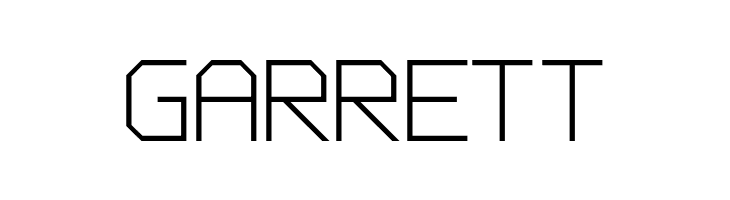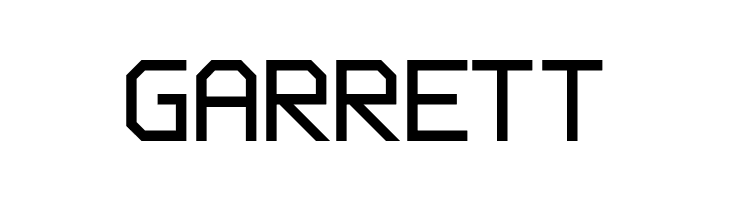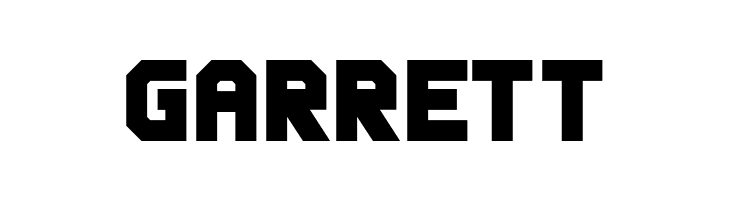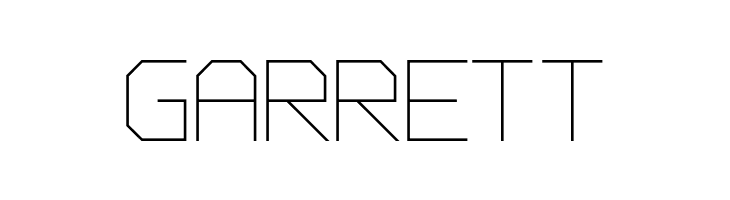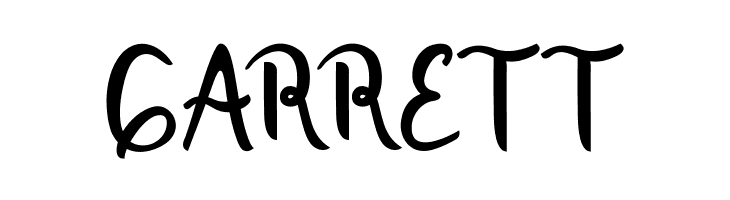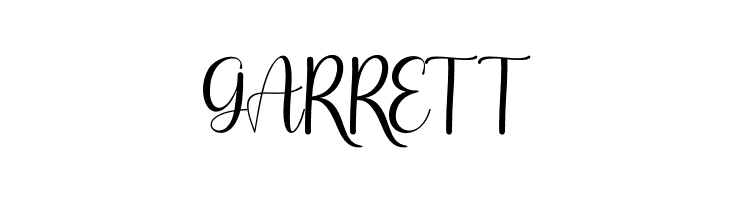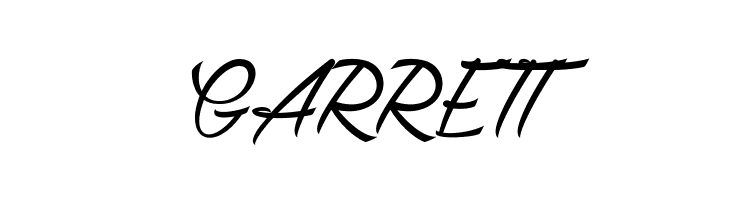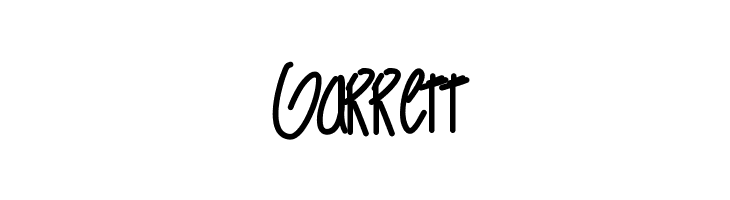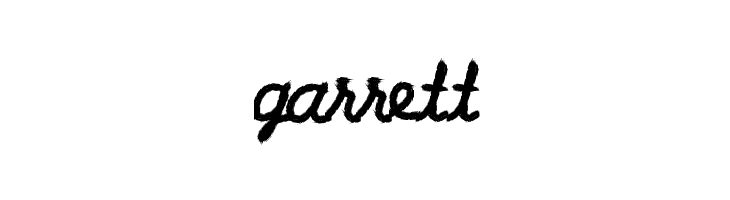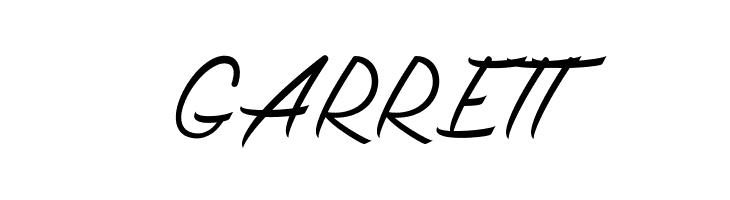
• CharcoalScript
A dynamic, cursive script font with bold, fluid strokes.
• chardonnay
An elegant and flowing script font with graceful curves and a sophisticated style.
• Chardons
A dynamic and elegant script font with flowing cursive letters.
• Chardons 2
A flowing, elegant script font with a sophisticated and stylish appearance.
• Chardons Brush
A dynamic brush-style font with fluid, cursive strokes and varying thickness.
• Chardons_PersonalUseOnly
A dynamic and elegant script font with flowing, cursive letterforms.
• Charganolton
A playful, hand-drawn script font with bold, flowing characters.
• Charge Off
A bold, geometric font with strong, angular characters.
• Charge Vector
A geometric, angular font with a futuristic and technical appearance.
• Charge Vector Black
A bold, geometric font with strong, angular lines and a blocky appearance.
• Charge Vector Bold
A bold, geometric font with angular, futuristic design elements.
• Charge Vector Thin
A geometric, angular font with thin lines and sharp corners, ideal for modern tech designs.
• ChargedUp
A lively, handwritten font with a playful and informal style.
• ChargeleSS
A modern, geometric font with clean lines and a minimalist style.
• Charger Distortion 1 Italic
A dynamic, italic font with a modern, distorted style.
• Charger Distortion 2
A jagged, distorted font with a chaotic and edgy aesthetic.
• Charger Distortion 2 Italic
A bold, jagged font with a chaotic, shattered appearance.
• Charger Eco
A bold, modern sans-serif font with clean, geometric lines.
• Charger Eco Oblique
A modern oblique font with medium contrast and sleek, dynamic style.
• Charger EcoBlack
A bold, modern sans-serif font with geometric and clean lines.
• Charger EcoBlack Oblique